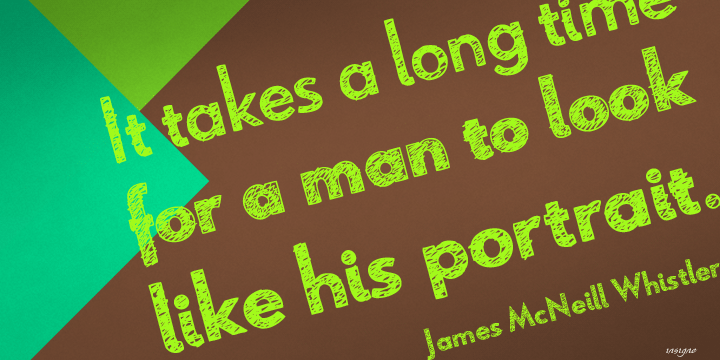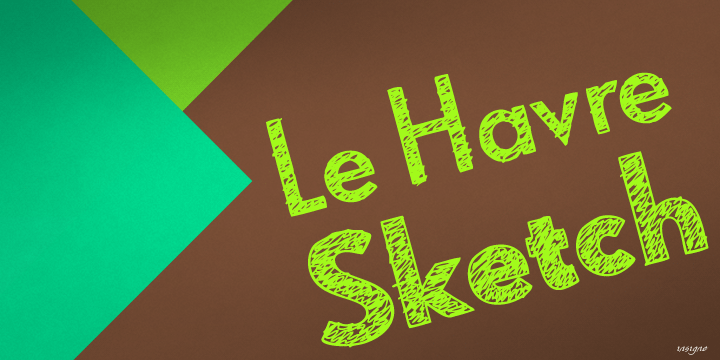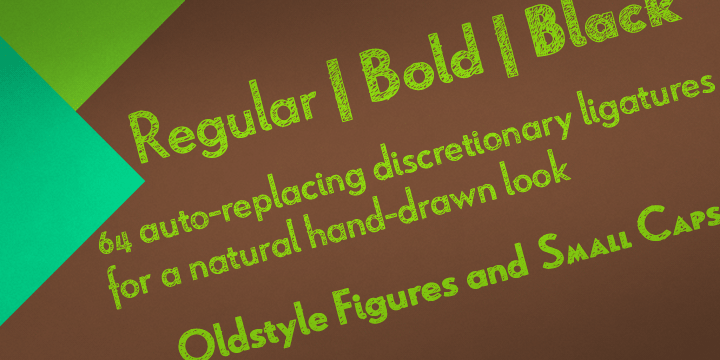
Le Havre Sketch is a grunge, hand display and kids font family. This typeface has three styles and was published by Insigne Design.
Le Havre Sketch is a hand-sketched geometric sans serif. The family contains three weights. All members of the family include Sixty-four OpenType ligatures that add a realistic, natural effect and ensure that no two letters in a word repeat, oldstyle figures and small caps. Please see the sample brochure to see these features in action. Le Havre Sketch is an excellent choice when you need a fun and interesting sans-serif.